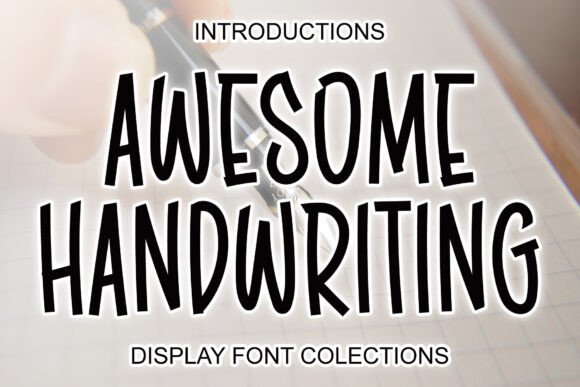
Awesome Handwriting Font
Awesome Handwriting is a fun and quirky font perfect for use on cheerful topics. Very suitable for children’s themed designs, especially when combined with bright colors.